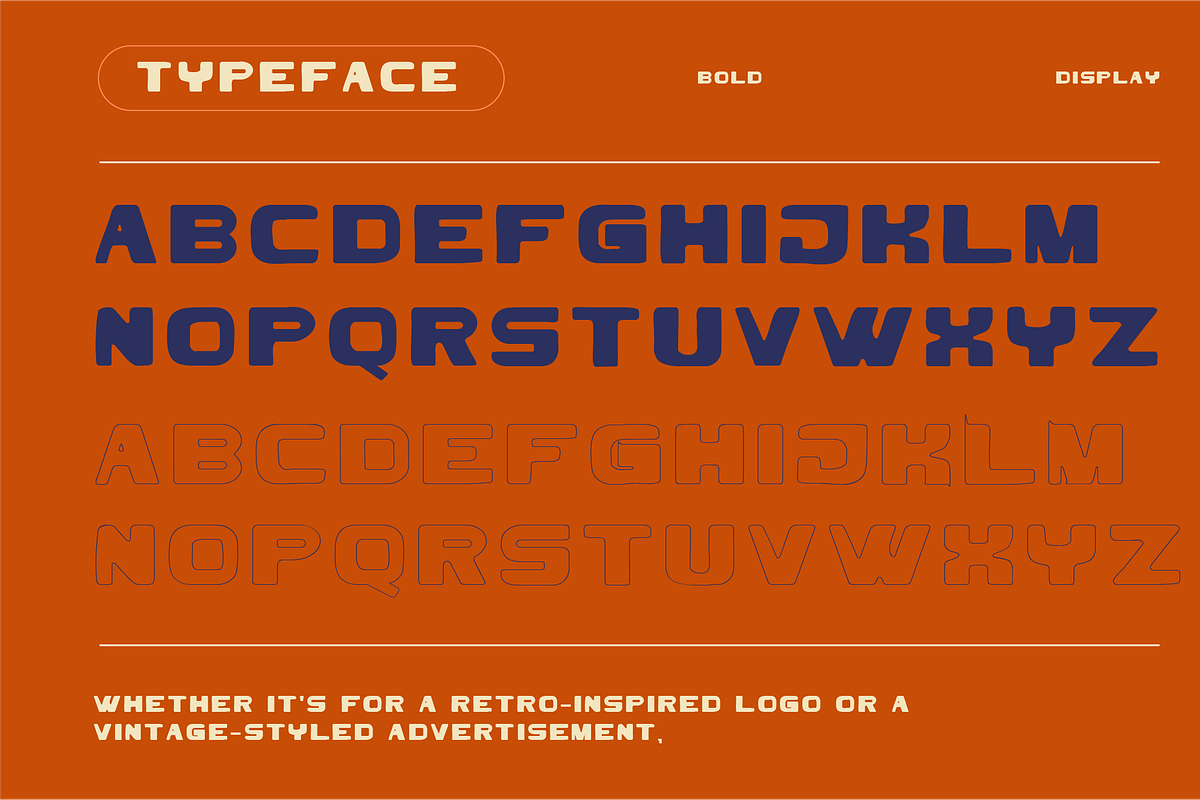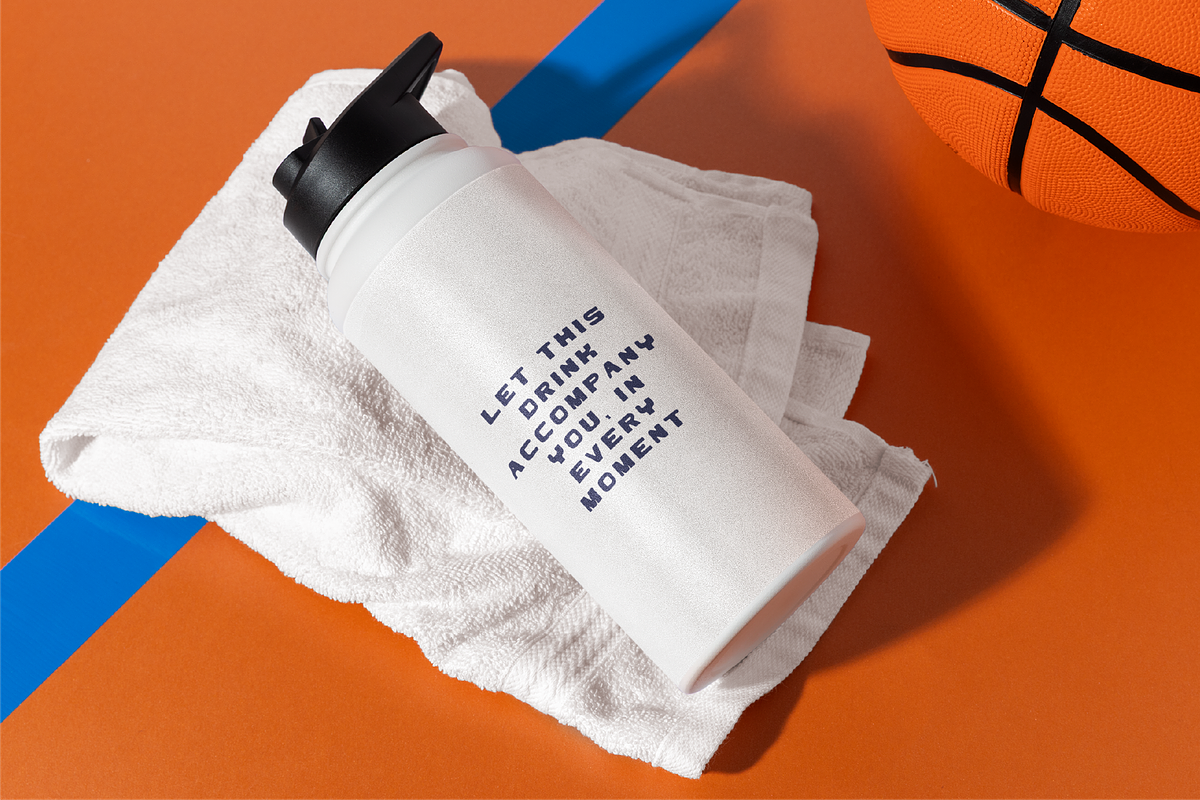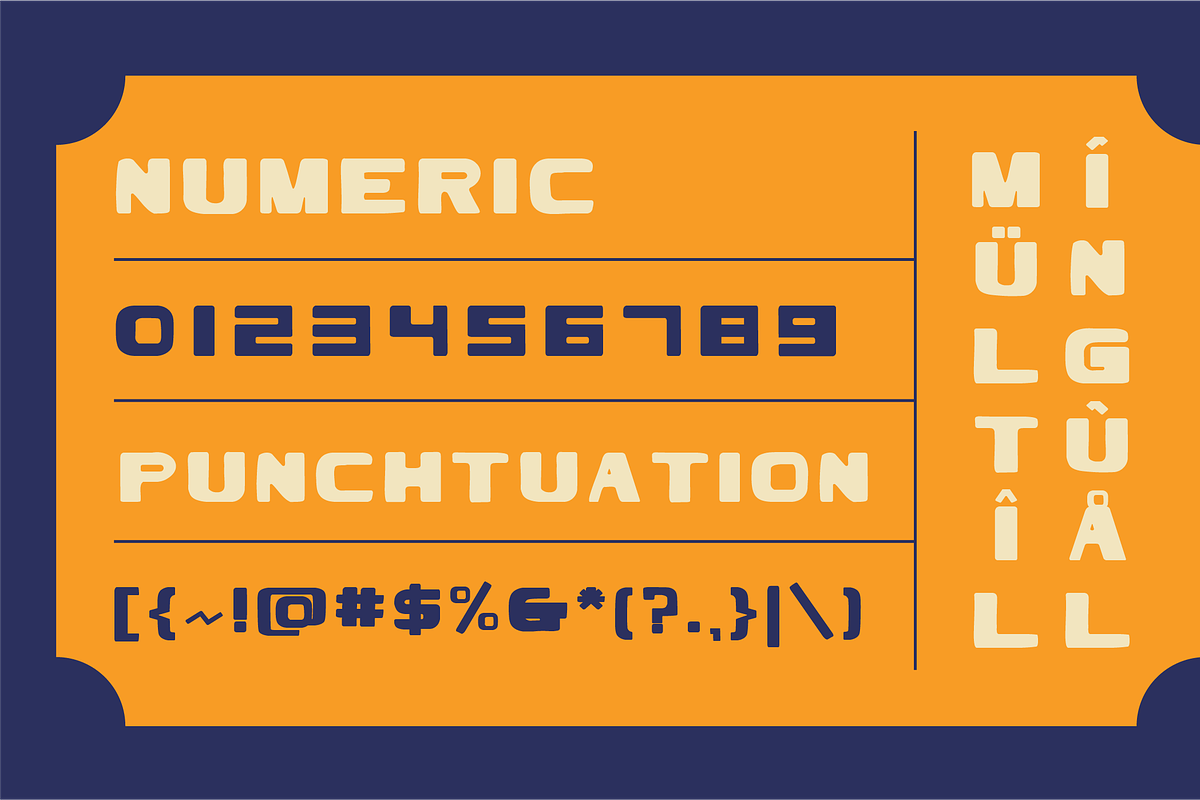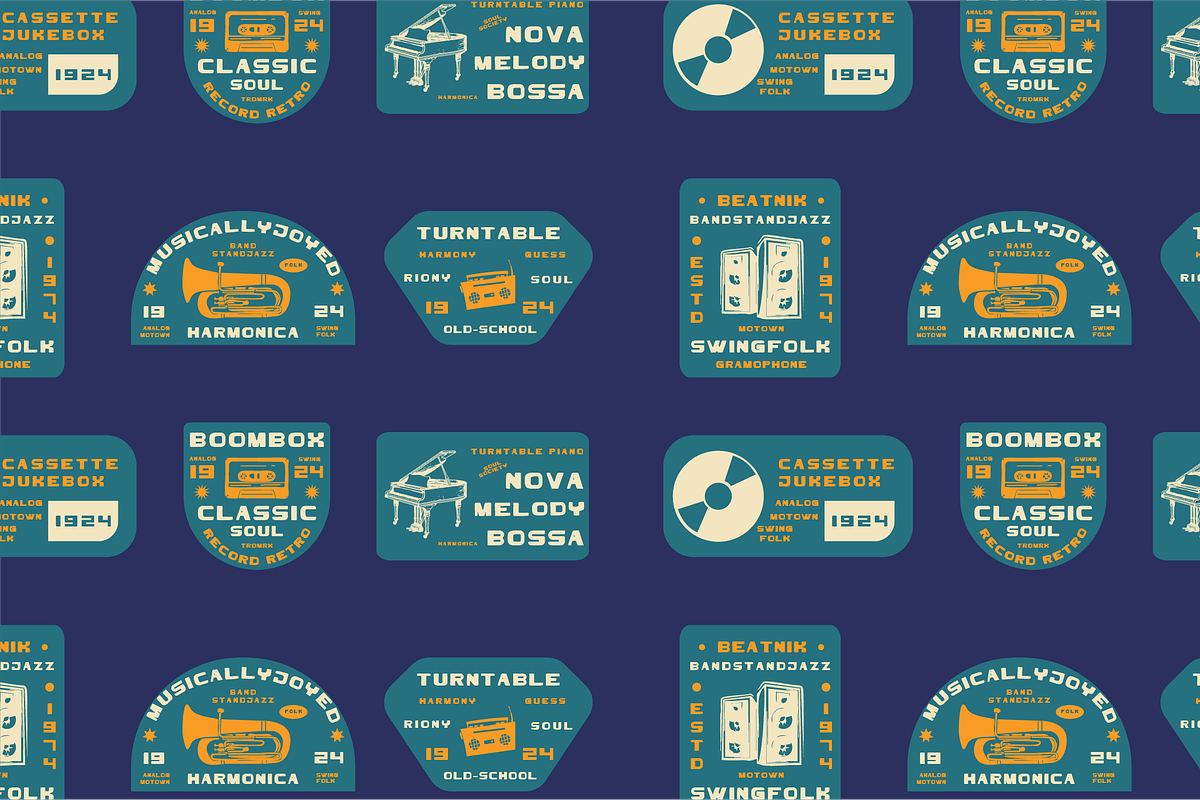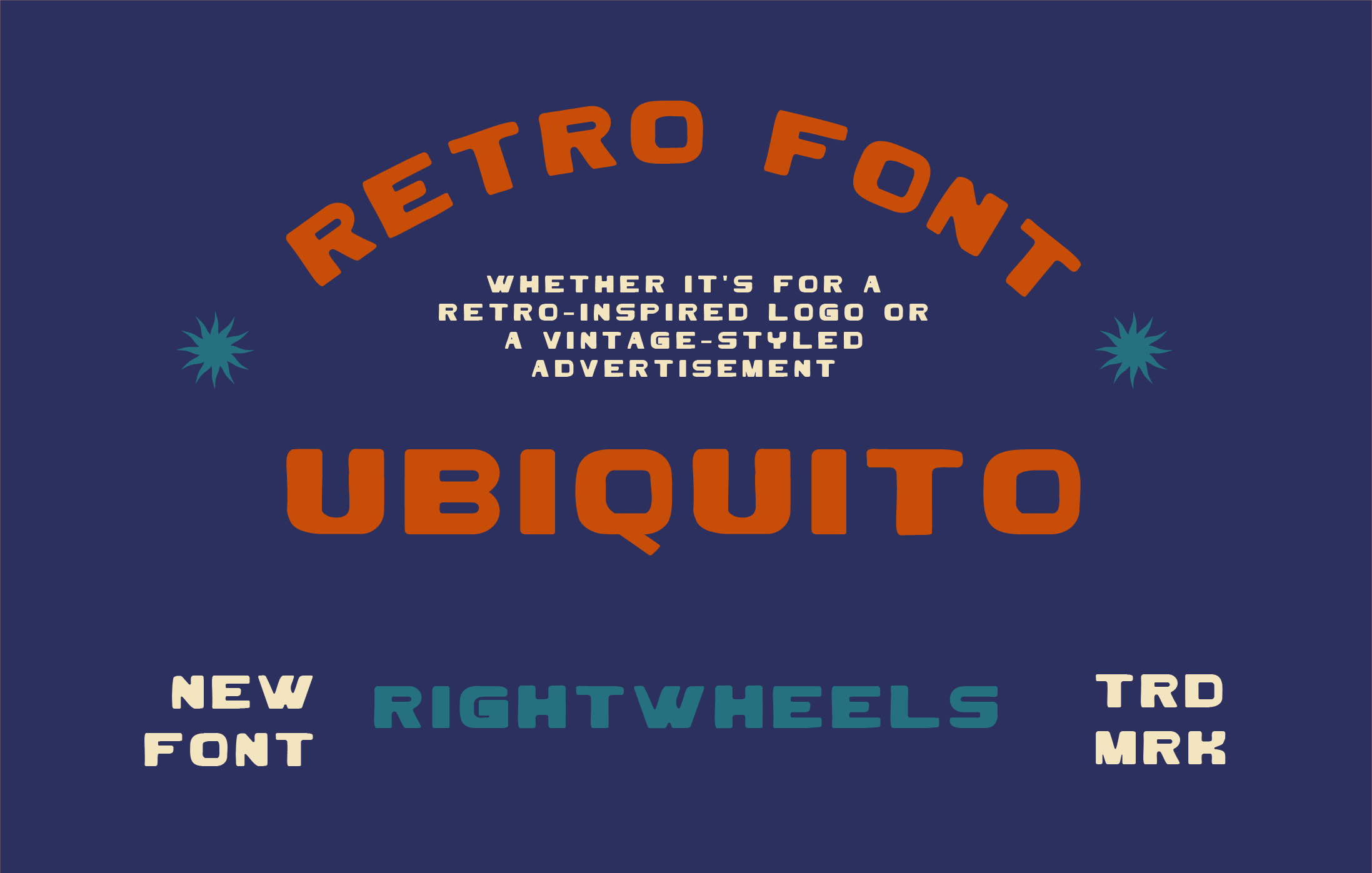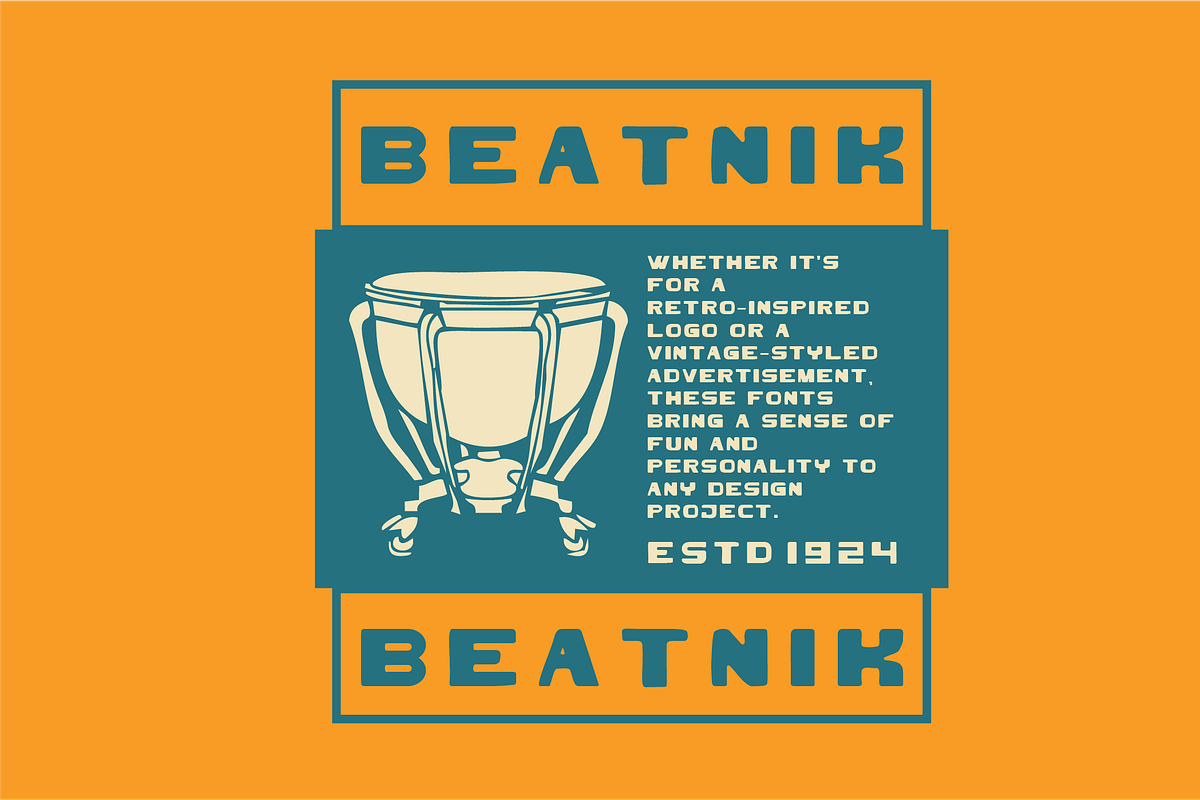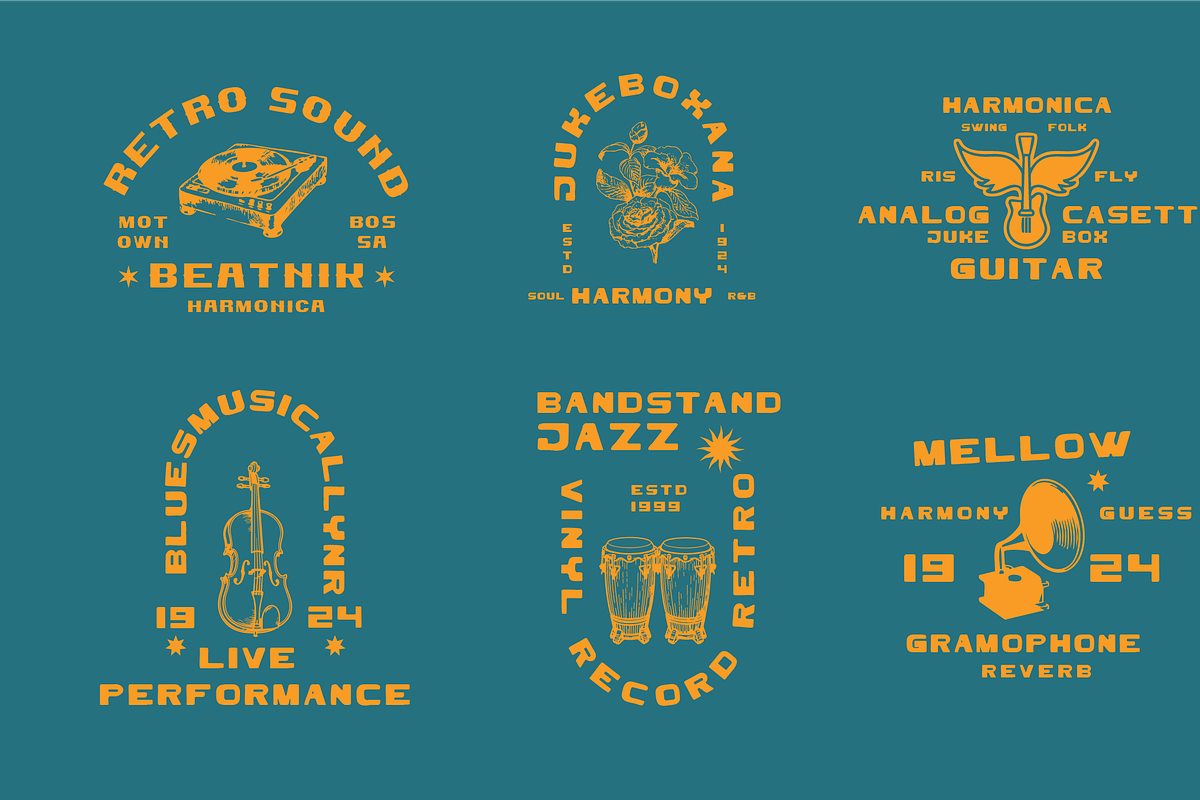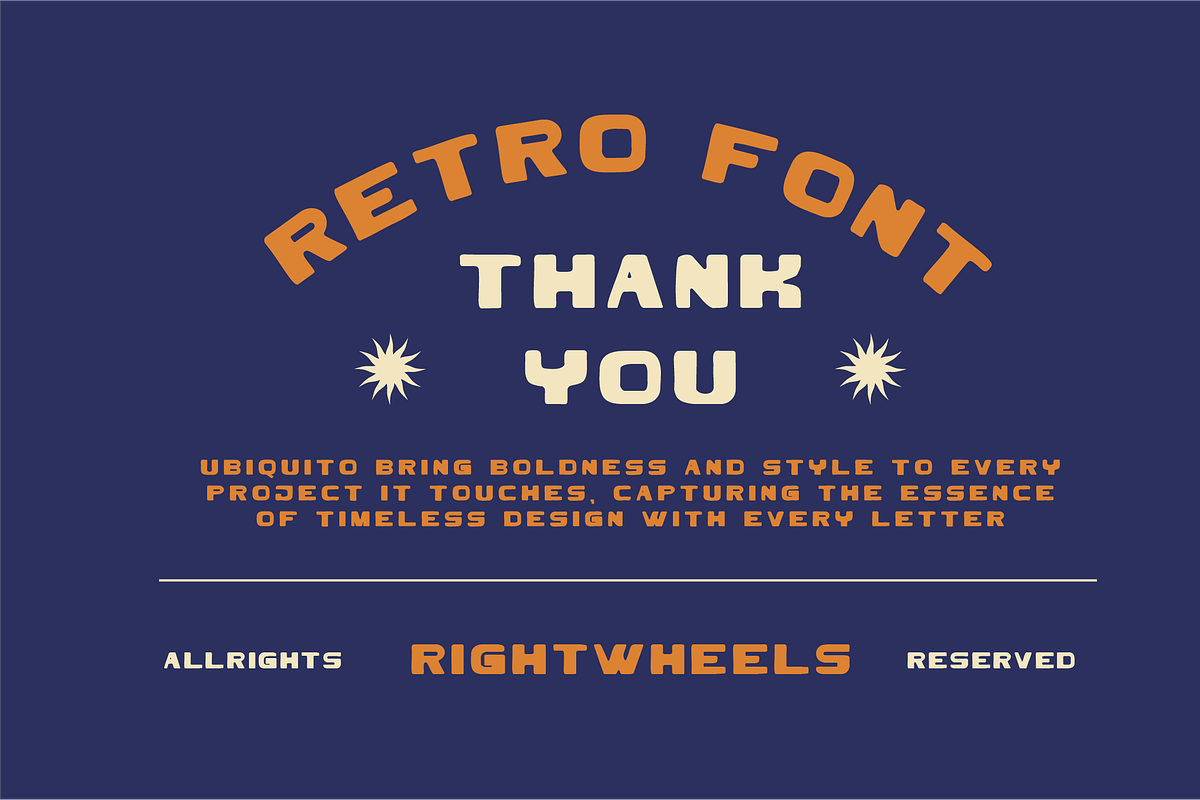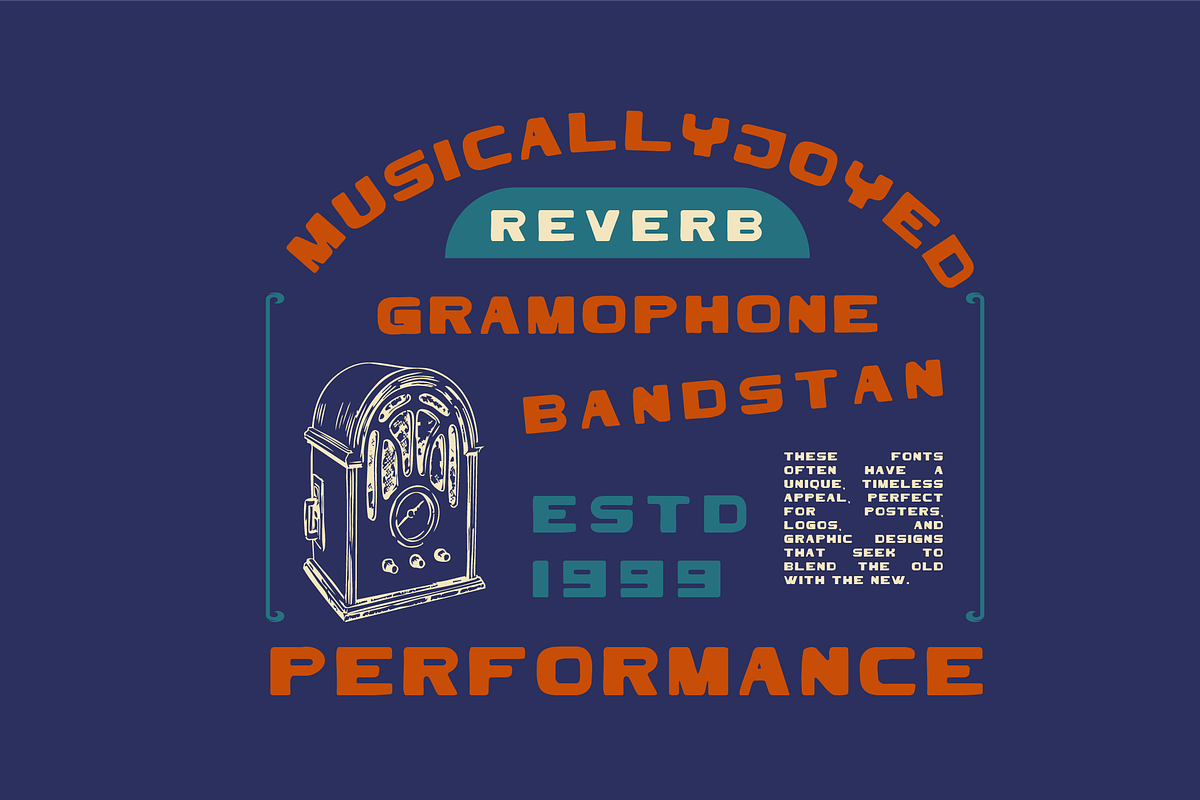
UBIQUITO - Retro Display Font
Is a retro-inspired font designed with an all-caps concept. It features bold, angular letterforms that channel a strong vintage vibe while maintaining clarity and legibility. Its geometric structure gives it a timeless yet modern feel, making it ideal for designs that need to make a statement.